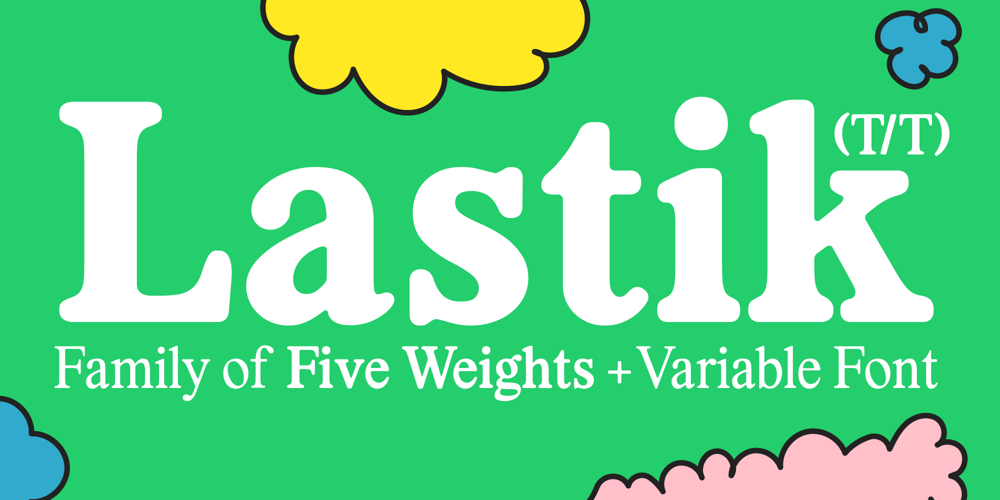
Lastik
Lastik Font Family was designed by Harbor Bickmore and published by That That Creative. Lastik contains 6 styles and family package options. Lastik is a real work horse of a font. It includes 5 styles that cover all you need from Display Fonts to body copy. This font comes from the idea of an approachable, friendly fun serif font. The font takes inspiration from old scholastic materials from the late 90s and early 2000’s.